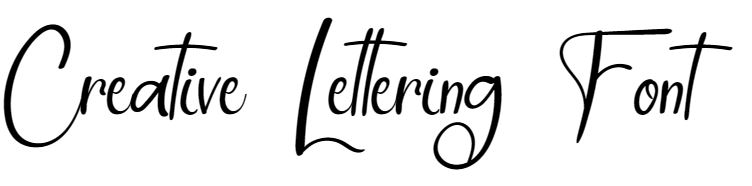
Creative Lettering
Creative Lettering is a script font made by Nur Edi Prayitno. The letters have the smooth movement of real pen lettering, which is why even a single name looks special in it. It's a free download, and you can try it with your own text in the preview above first.
What You Can Type With Creative Lettering
With complete upper and lowercase letters and all ten digits, Creative Lettering is ready for real wording, not just a single headline. Common punctuation such as &, !, ? and @ is included as well. It also has the accented letters you need for Spanish, French, German, Portuguese and Italian.
Ligatures and Smart Letters in Creative Lettering
Where Creative Lettering Works Best
Designers usually reach for fonts like Creative Lettering when they're making wedding invitations, logos and signature-style headings. Its lowercase letters are small compared to the capitals, so set it a size or two bigger than usual. The file has no kerning data, so in logos and big titles check pairs like AV, To and Wa and tighten the spacing by hand. Script fonts read best in short bursts, so keep it to names, titles and one-line quotes. Skip all caps: script capitals are drawn to start a word, not to fill one.
Does Creative Lettering have ligatures?
Yes. Creative Lettering has ligatures that turn on by themselves in most design apps and browsers, so you don't need to do anything special.
Does Creative Lettering support accented letters?
Yes. Creative Lettering includes the accented letters needed for Spanish, French, German, Portuguese and Italian, so it works for more than just English.